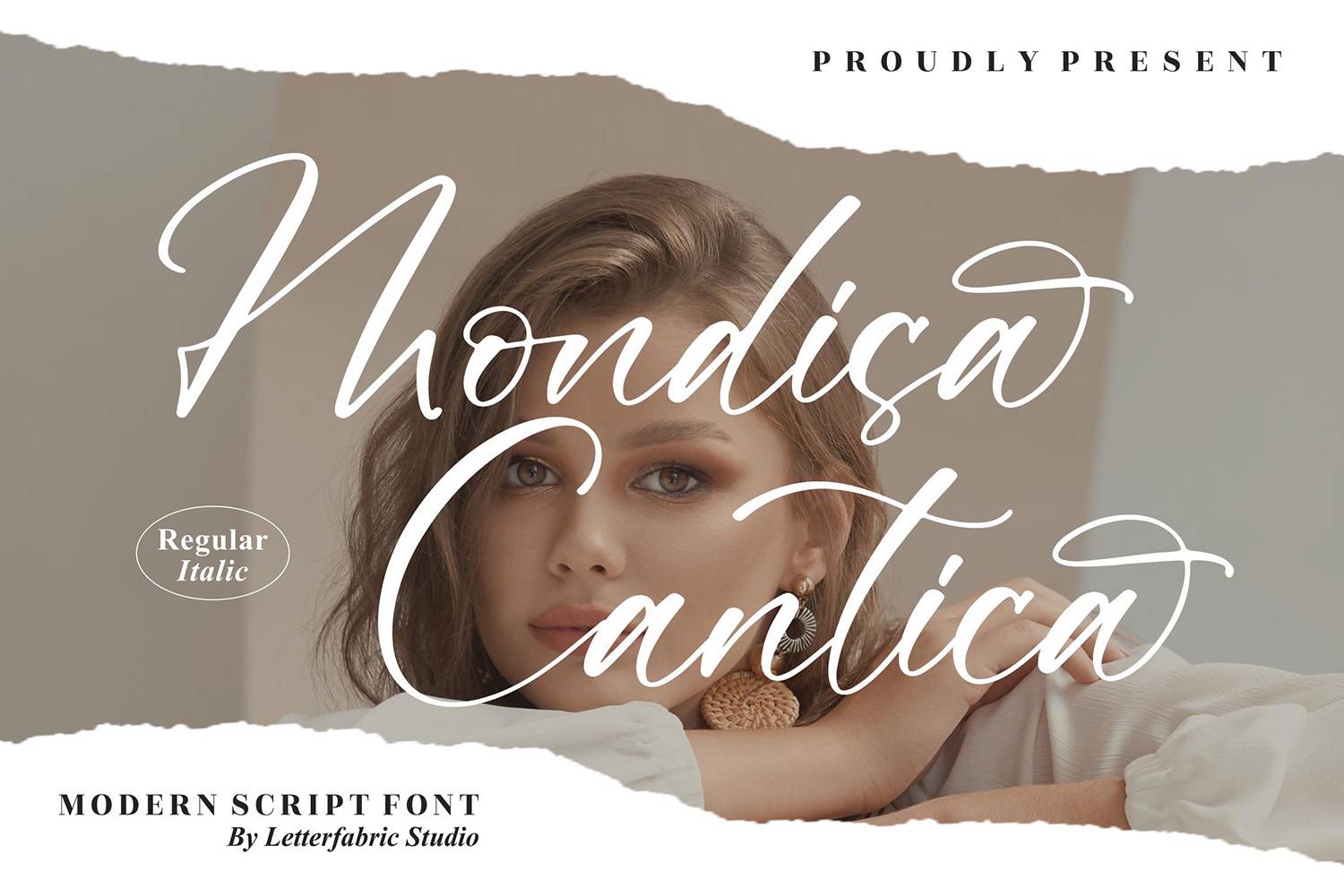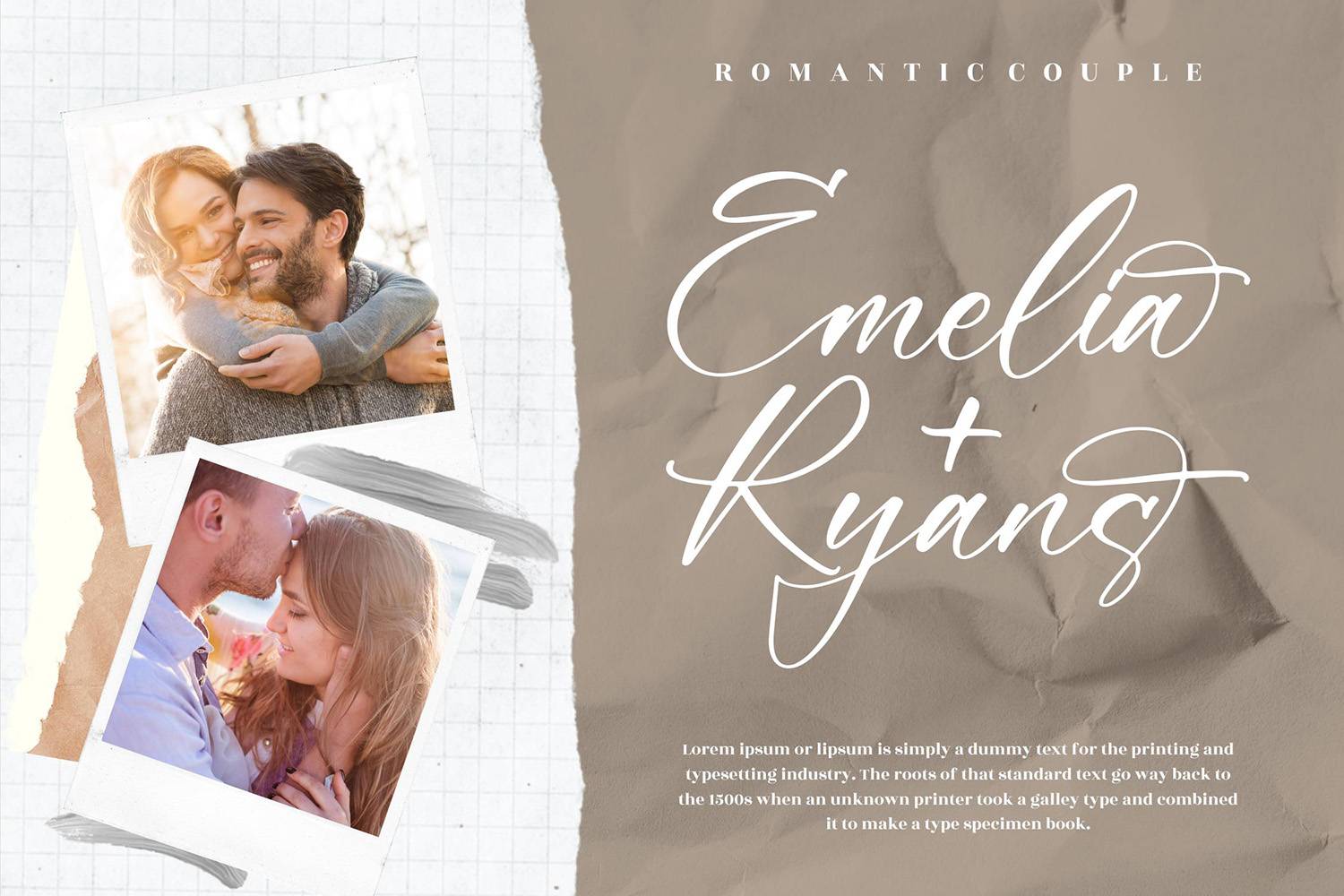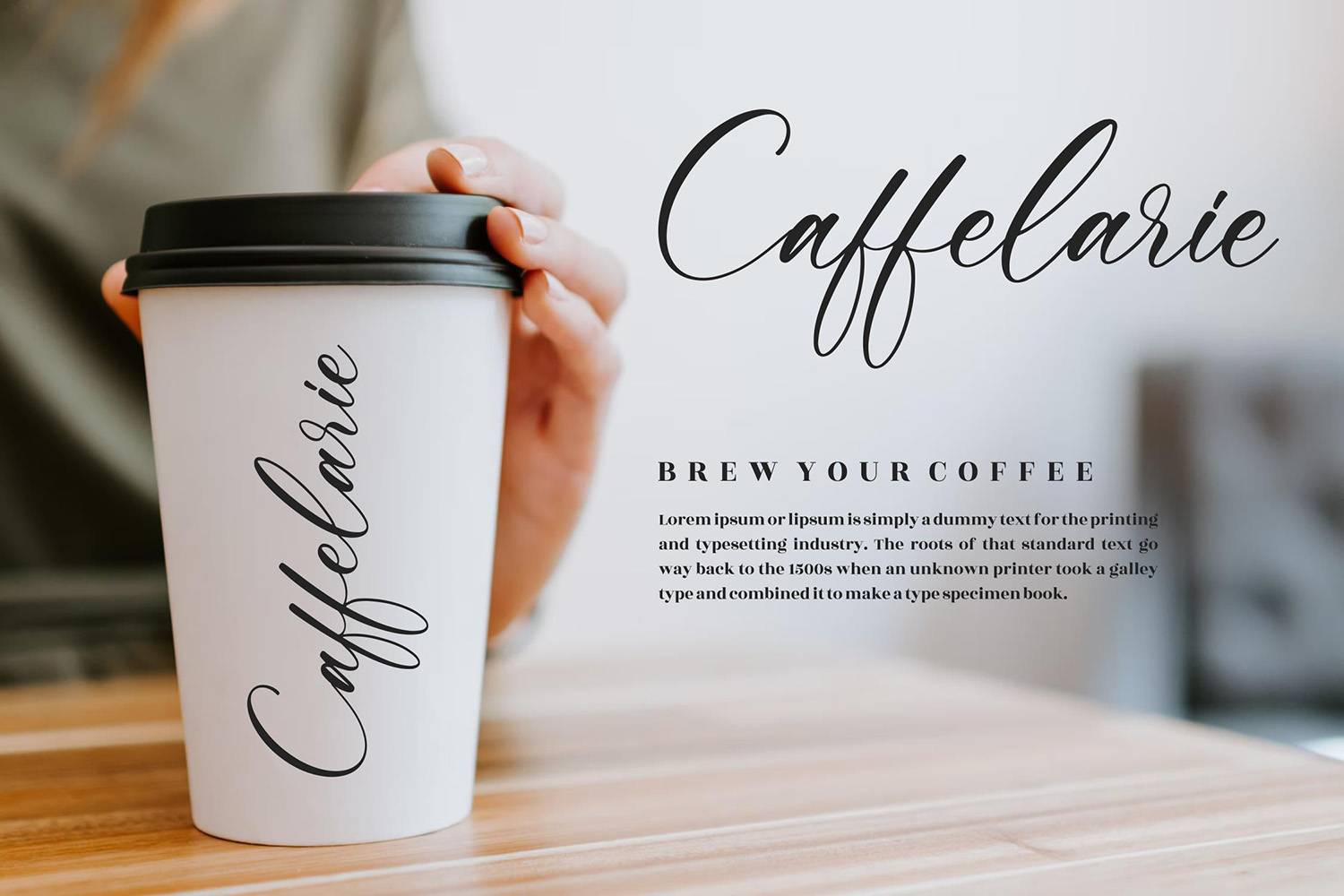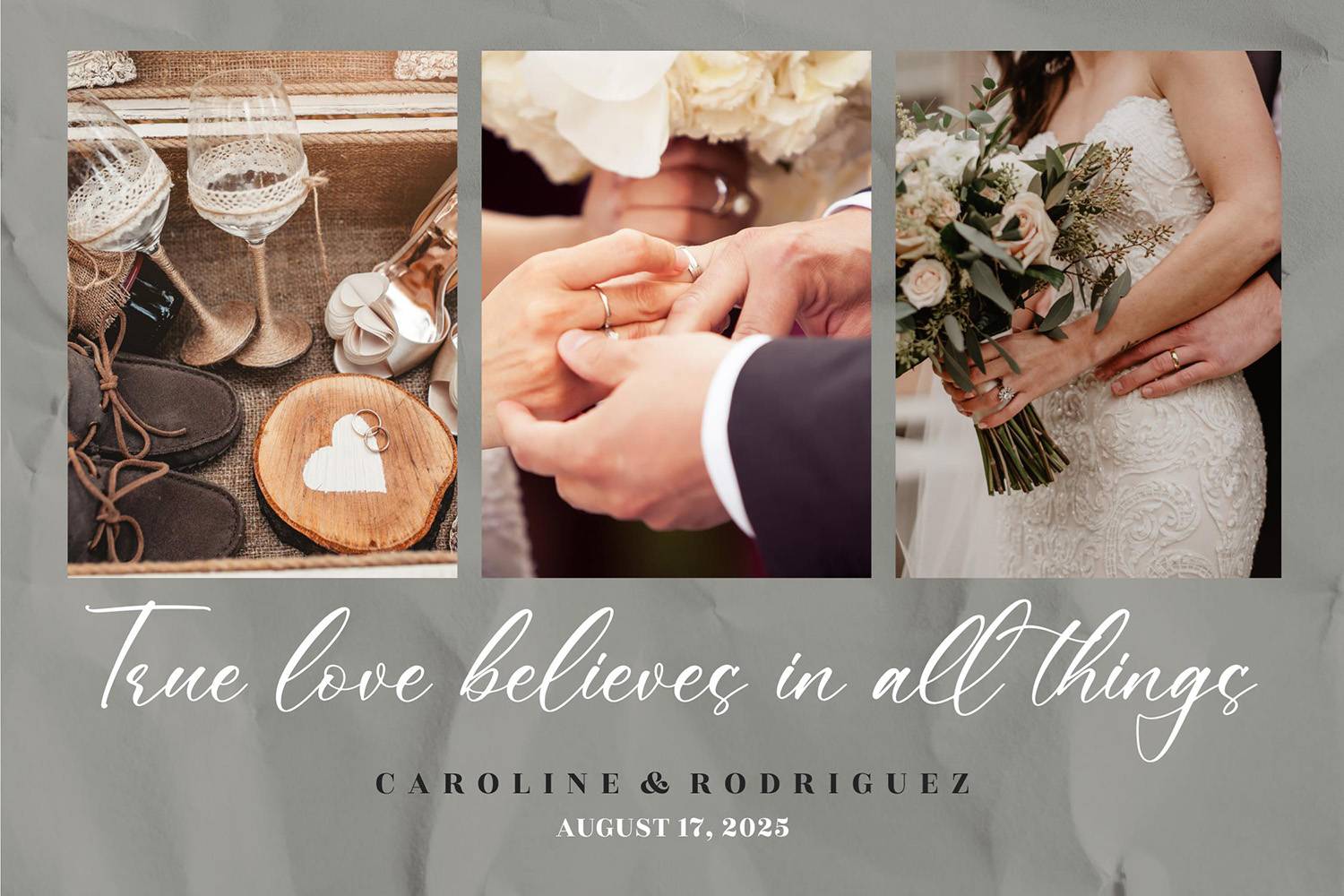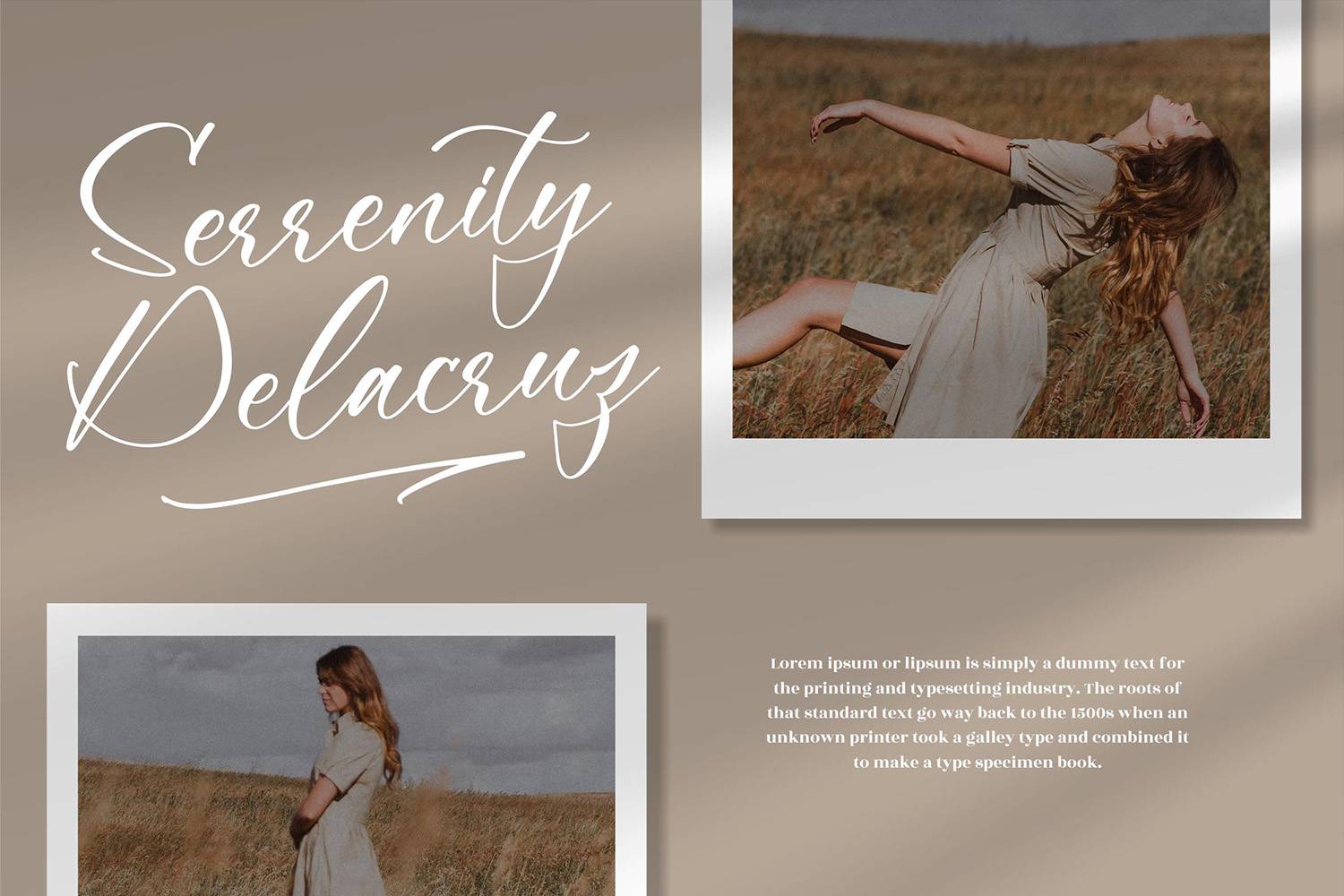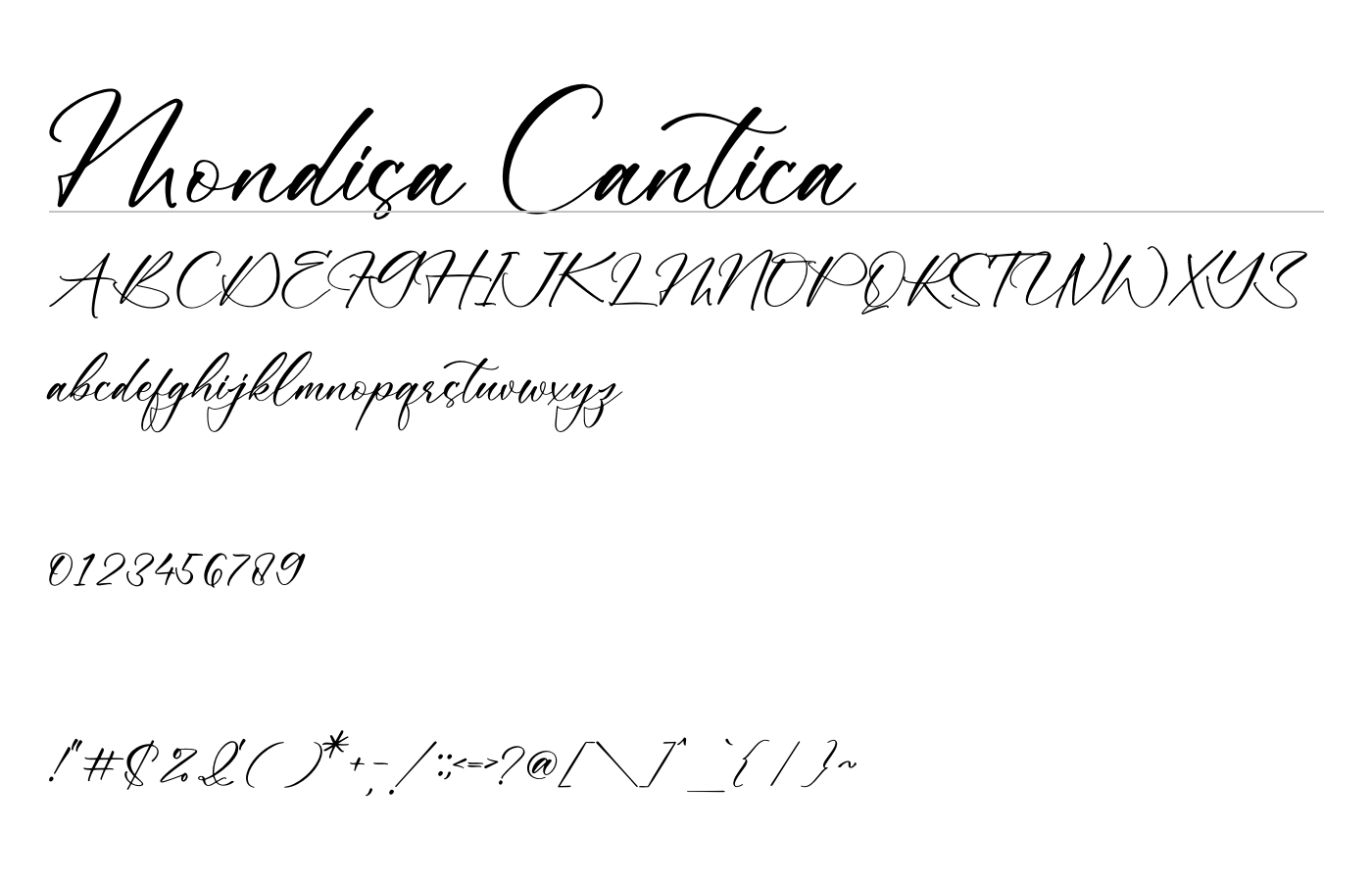
Mondisa Cantica is an elegant, handwritten script font characterized by its delicate, flowing strokes and high contrast between thick and thin lines. Its slender, graceful letterforms, featuring single-story "a" and "g" shapes and expressive swashes, make it perfect for sophisticated branding, wedding invitations, and stylish editorial projects. This font's refined charm and airy feel evoke a sense of romance and luxury, adding a personal, artistic touch to any design.
Mondisa Cantica Font
About Mondisa Cantica Font